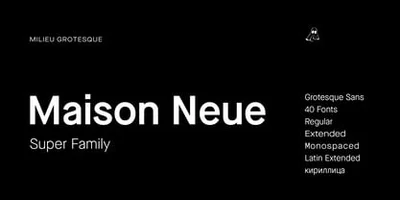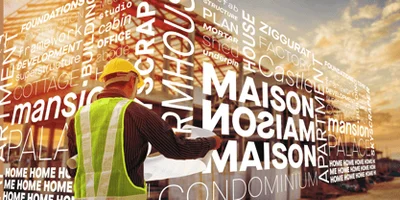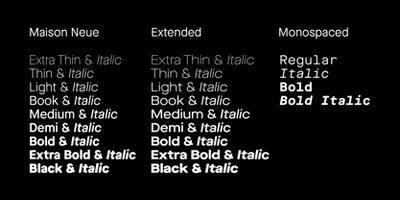
Maison Neue vs Syntax
Maison Neue and Syntax are both sans-serif typefaces sharing a elegant foundation. Where Maison Neue leans neo-grotesque, fashion, Syntax brings humanist, script. Compare which suits your Branding project.
Design overlap:14%
Maison Neue
Syntax
Maison Neue
Syntax
| Feature | Maison Neue | Syntax |
| Source | Milieu Grotesque | Linotype |
Typography for fashion brands, style publications, and luxury apparel. Fashion f...
Recommended: Maison Neue
- neo-grotesque, fashion design character
- Suited for Fashion and Luxury
- From milieu-grotesque
Consider: Syntax
- humanist, script design character
- Suited for Books
- From linotype